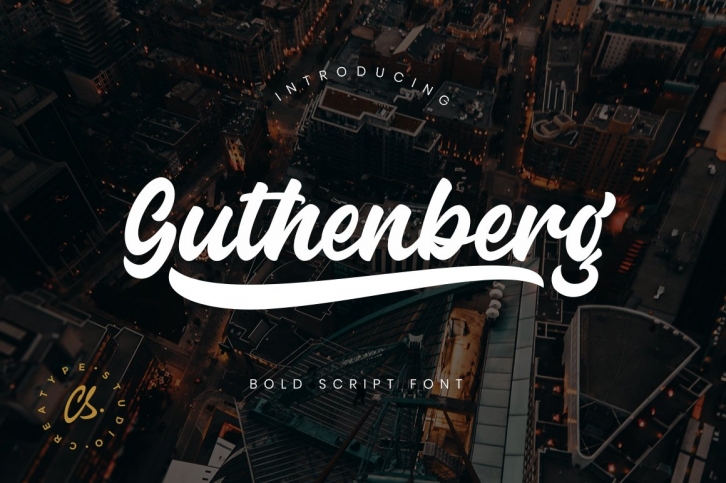
Guthenberg Bold Script is a bold calligraphy script with dramatic movement and strong style for your latest project that needs handlettering taste.
Guthenberg Bold Script is perfect for branding projects, logo, wedding designs, social media posts, advertisements, product packaging, product designs, label, photography, watermark, invitation, stationery and any projects that need handwriting taste.
- More than 300 of glyphs
- Ligature & Stylistic alternate